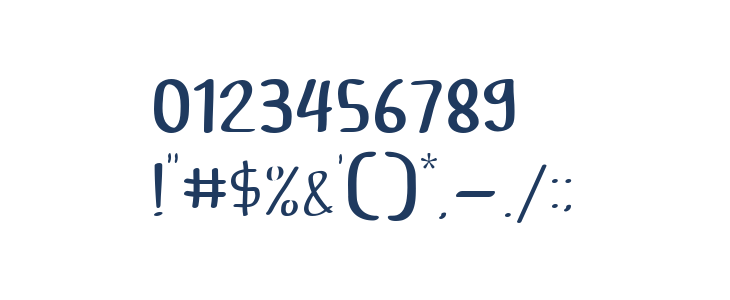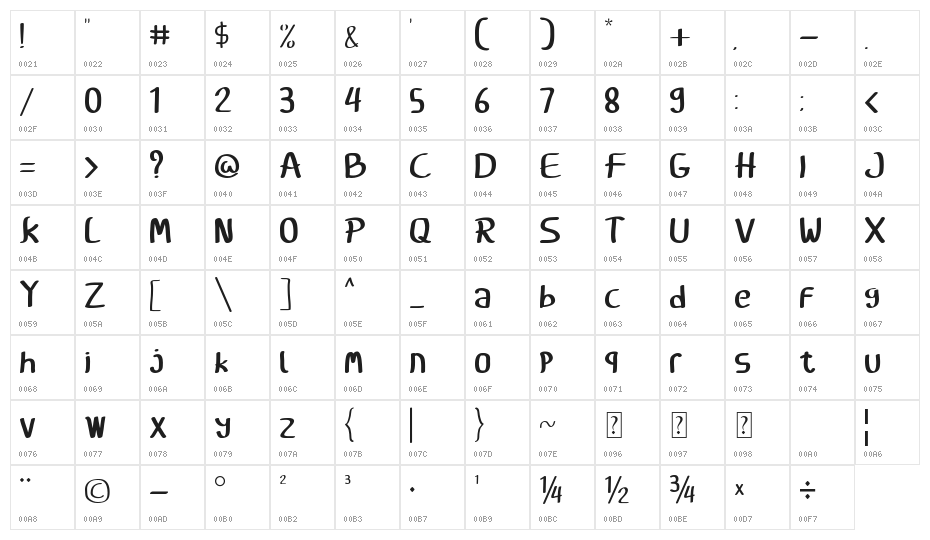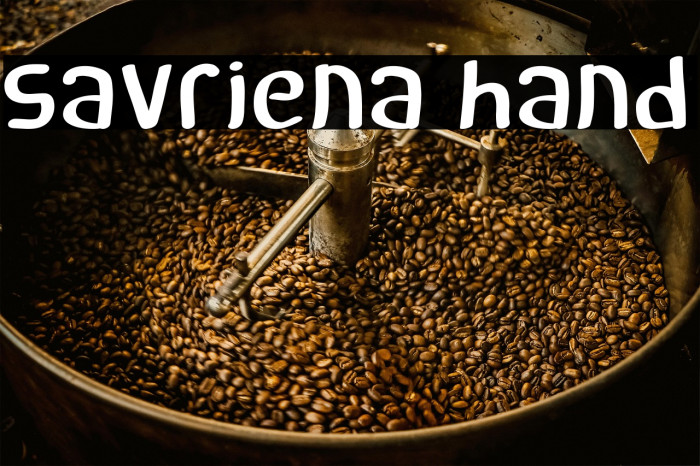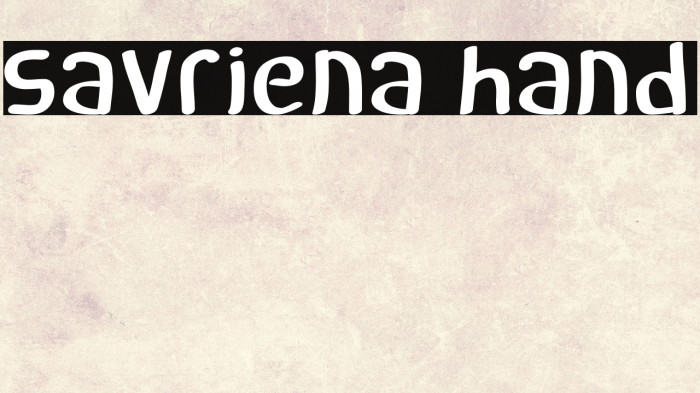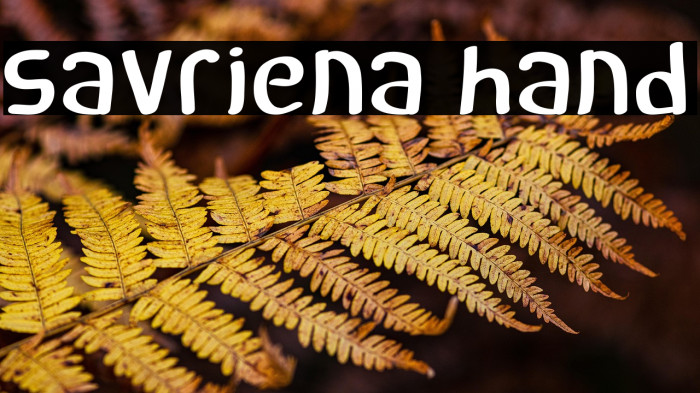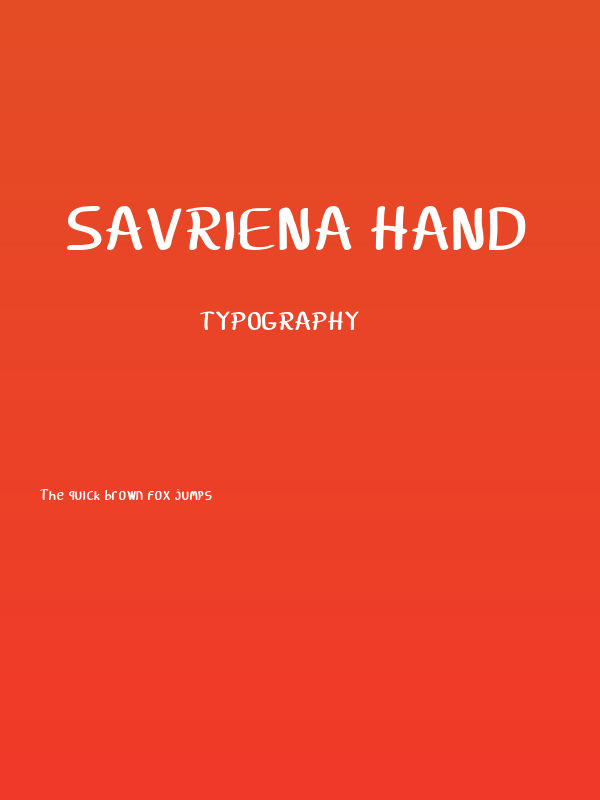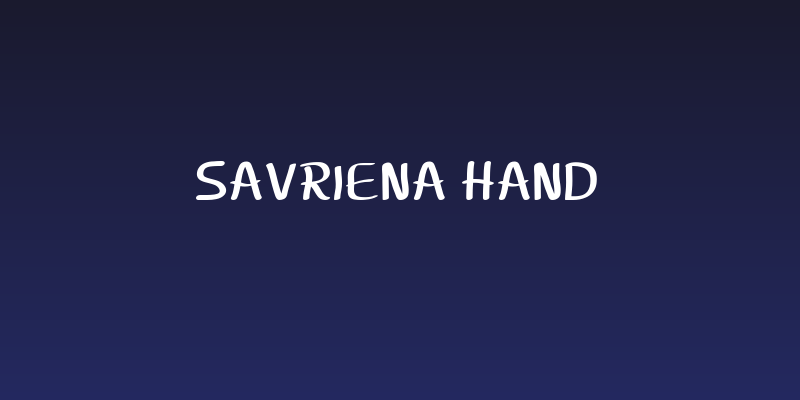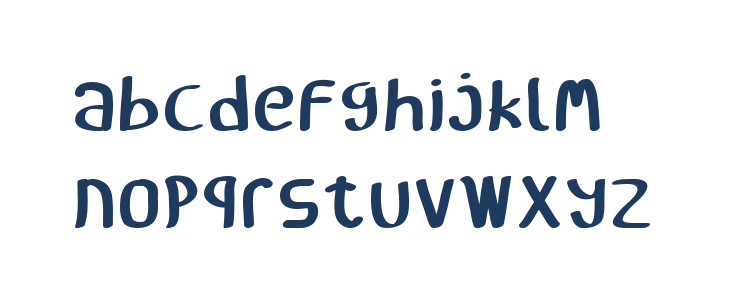
savriena hand Font
savriena hand Description
This font features a playful and informal style, characterized by its rounded and slightly irregular letterforms. The strokes are consistent in thickness, giving it a uniform appearance while maintaining a hand-drawn feel. The uppercase and lowercase letters are well-balanced, with a slight tilt that adds to its casual charm. The numerals and special characters follow the same design principles, ensuring cohesion across all glyphs. This font's unique personality makes it stand out, perfect for projects that require a touch of whimsy and creativity.